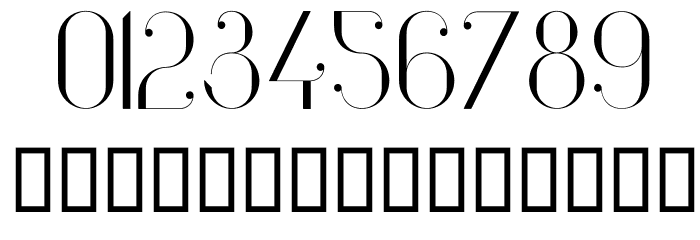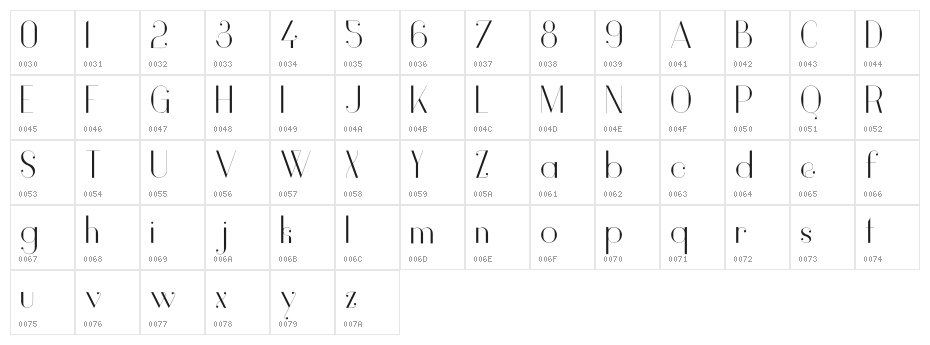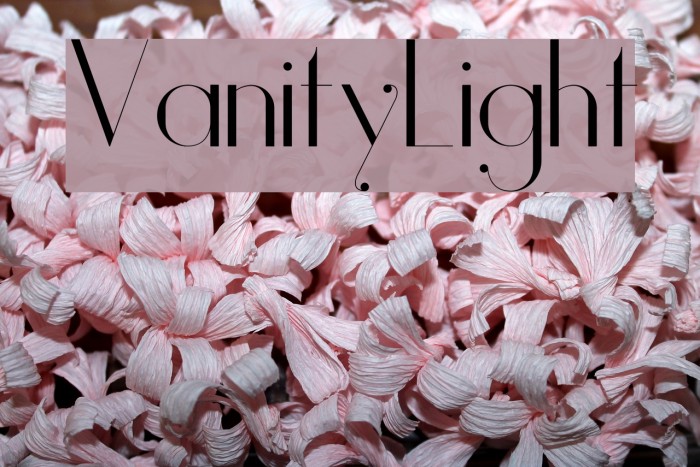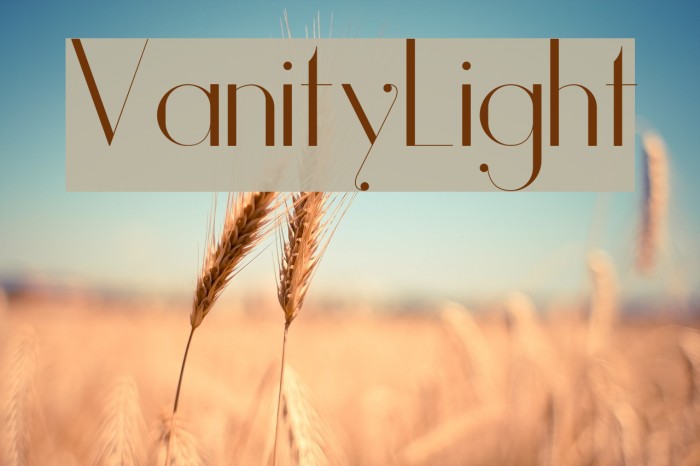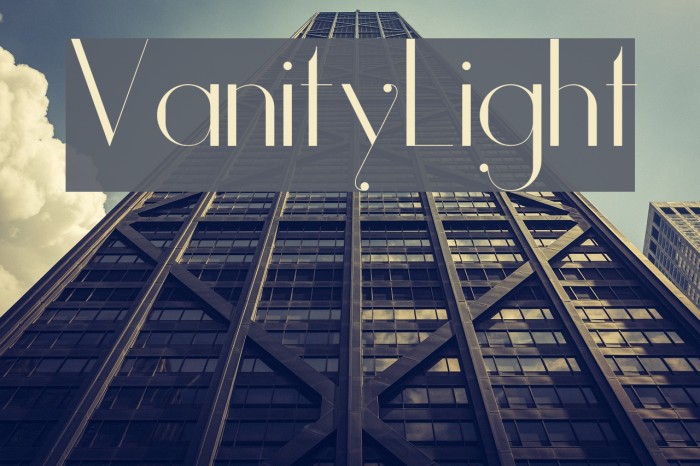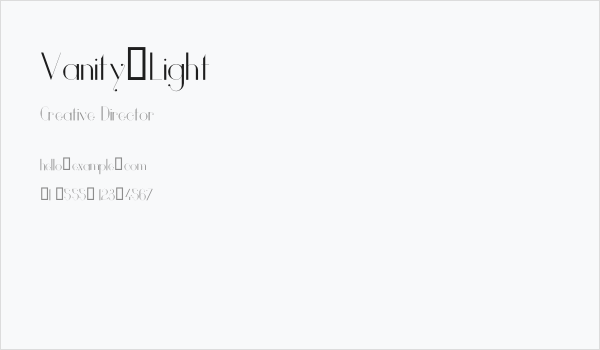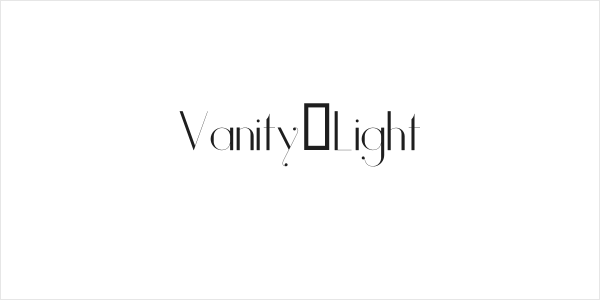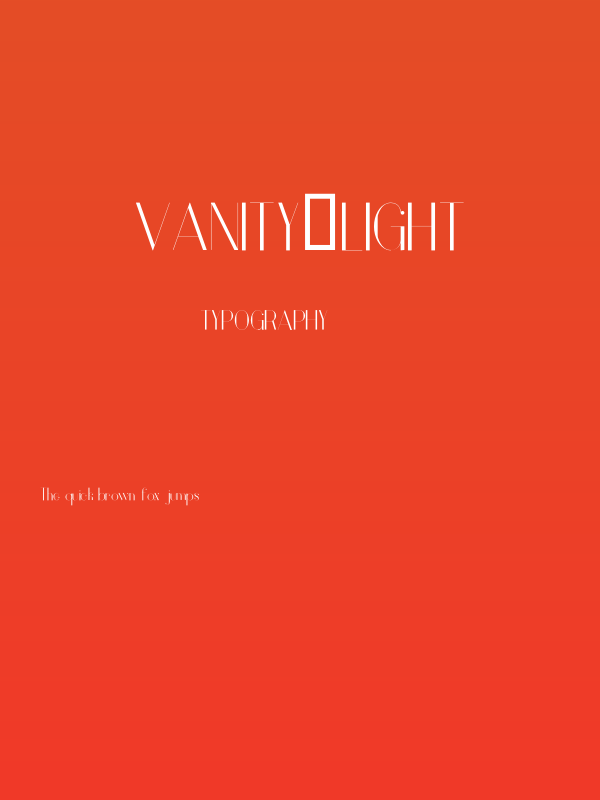
Vanity-Light Font
Vanity-Light Description
This font features a sleek and elegant design with a high contrast between thick and thin strokes, giving it a sophisticated and modern appearance. The uppercase letters are tall and slender, while the lowercase letters maintain a consistent style with unique curves and loops. The numerals are distinct and stylish, complementing the overall aesthetic. Special characters are designed with a similar flair, making them suitable for decorative purposes. The font's refined look makes it ideal for projects that require a touch of elegance and modernity.
| Overall Style | Elegant and Modern |
| Proposed Projects | Ideal for luxury branding, fashion magazines, wedding invitations, and high-end product packaging. |